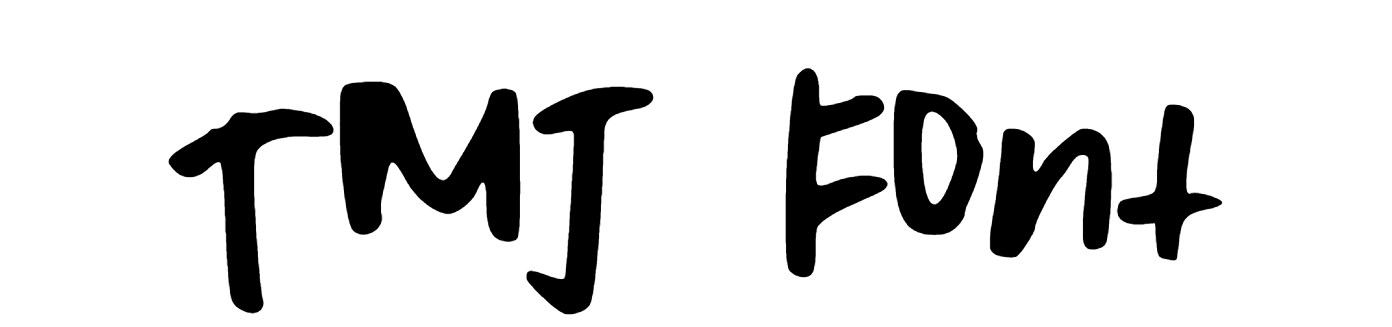
TMJ Font Preview
TMJ
TMJ is a fancy font. Bold and full of character, it's built to stand out rather than blend in. You can download it for free and test it with your own words in the preview above.
What You Can Type With TMJ
With complete upper and lowercase letters and all ten digits, TMJ is ready for real wording, not just a single headline. Common punctuation such as &, !, ? and @ is included as well. It also has the accented letters you need for French and German.
Where TMJ Works Best
Designers usually reach for fonts like TMJ when they're making posters, logos and eye-catching headlines. The file has no kerning data, so in logos and big titles check pairs like AV, To and Wa and tighten the spacing by hand. Use it for one standout word or headline and let simpler fonts handle the rest.
Does TMJ support accented letters?
Yes. TMJ includes the accented letters needed for French and German, so it works for more than just English.